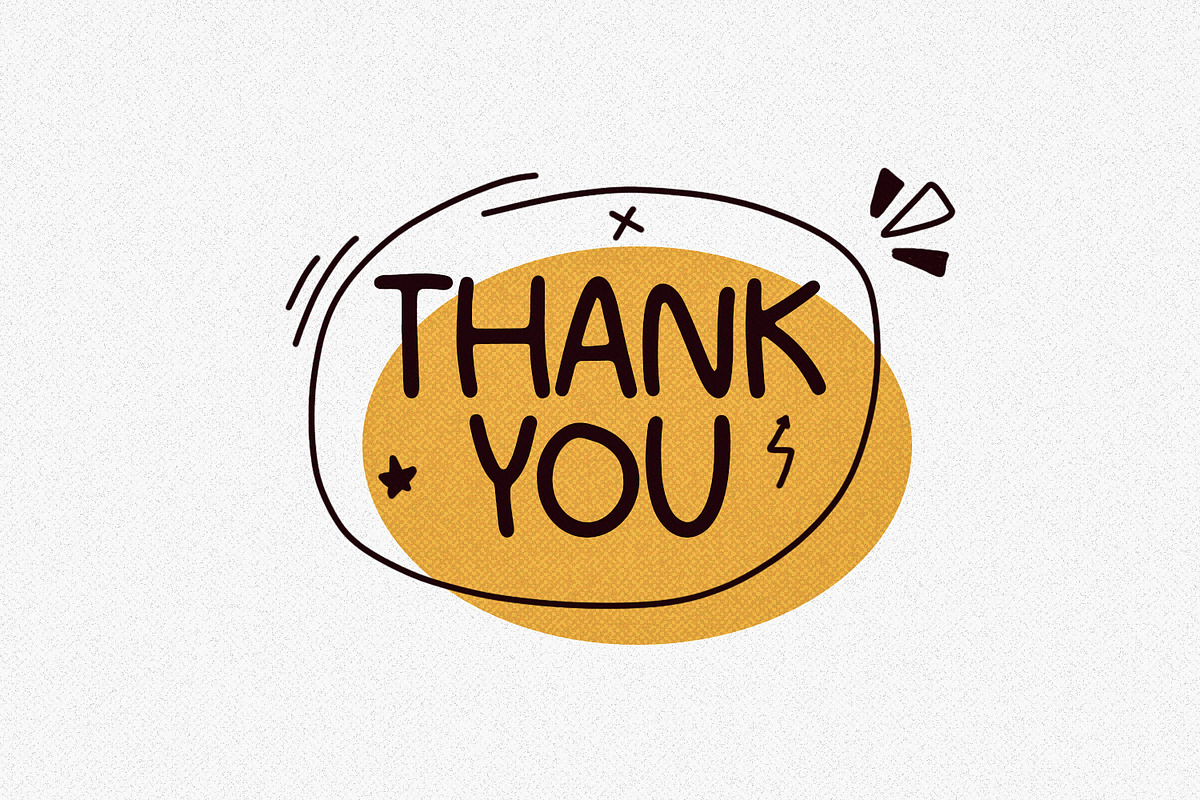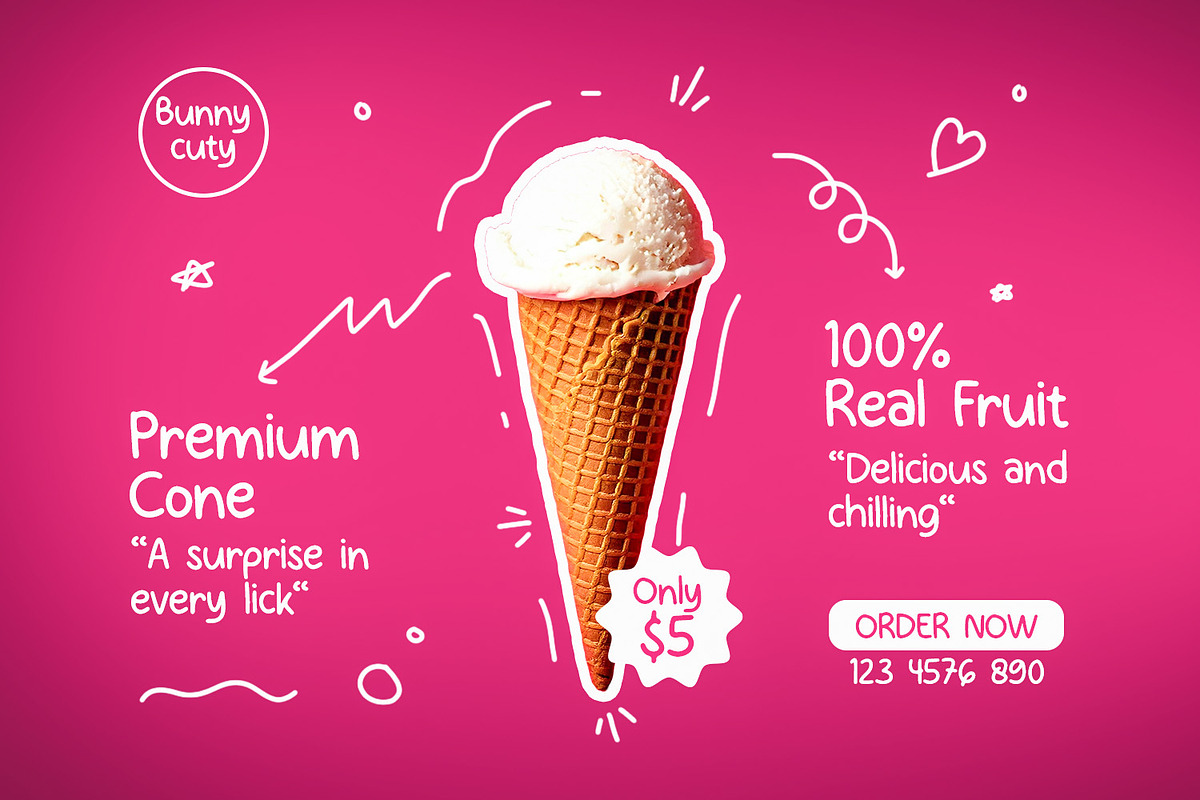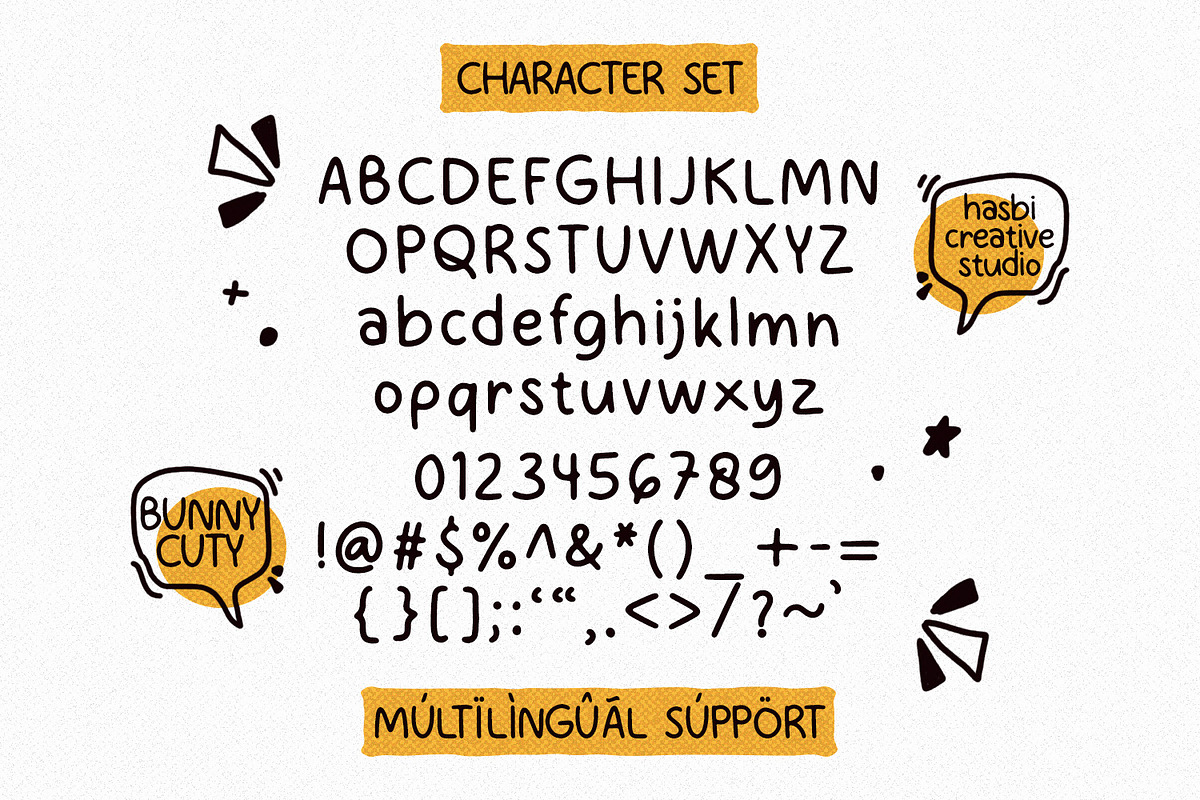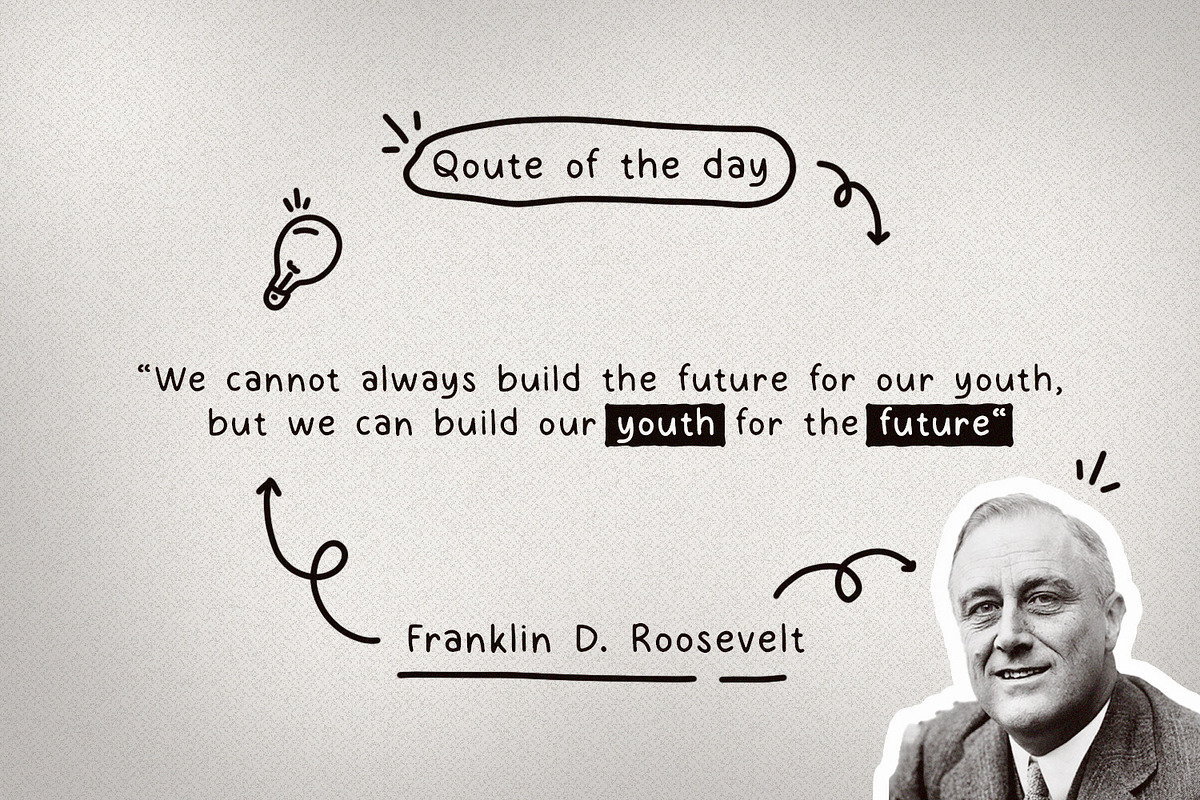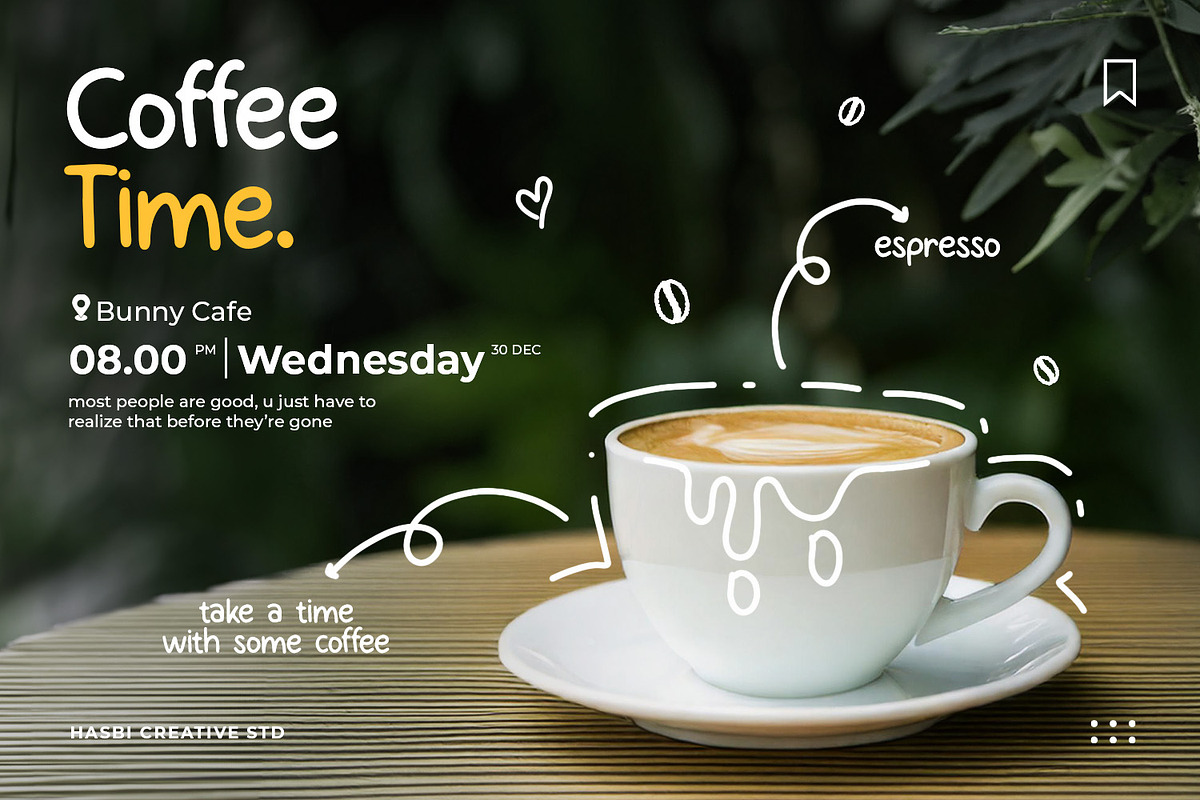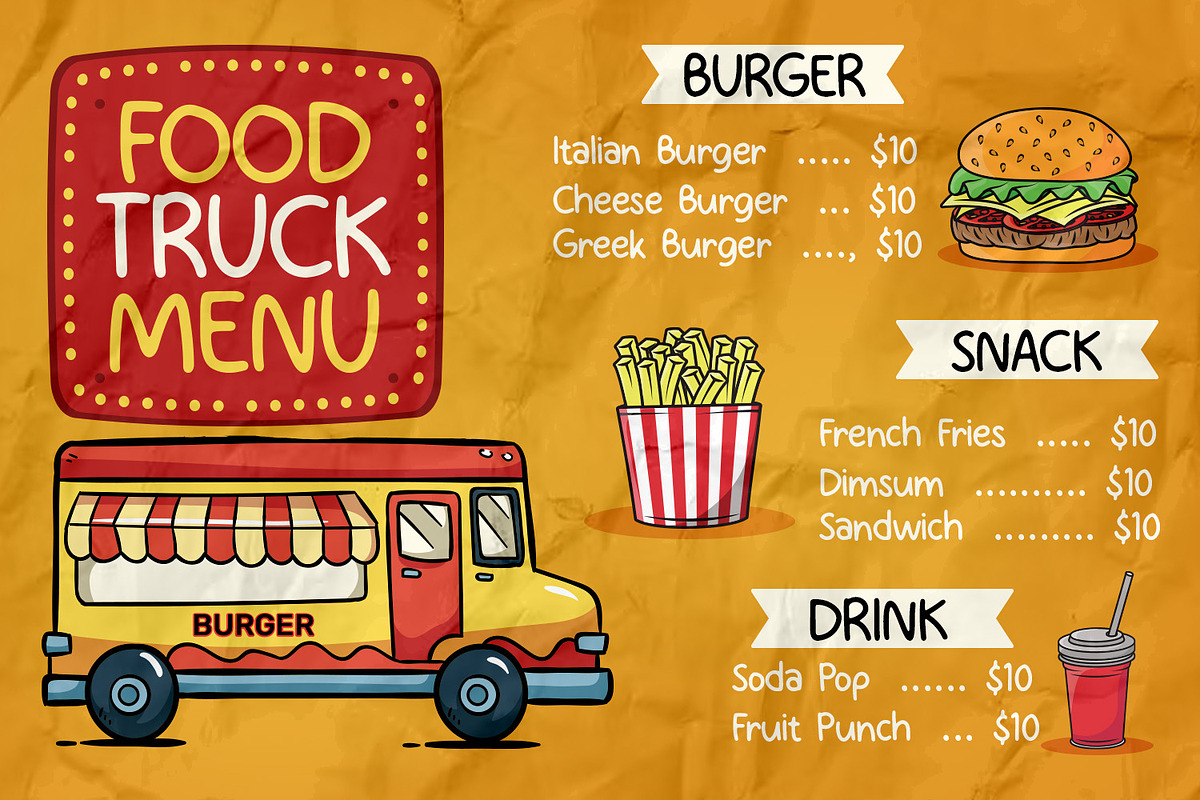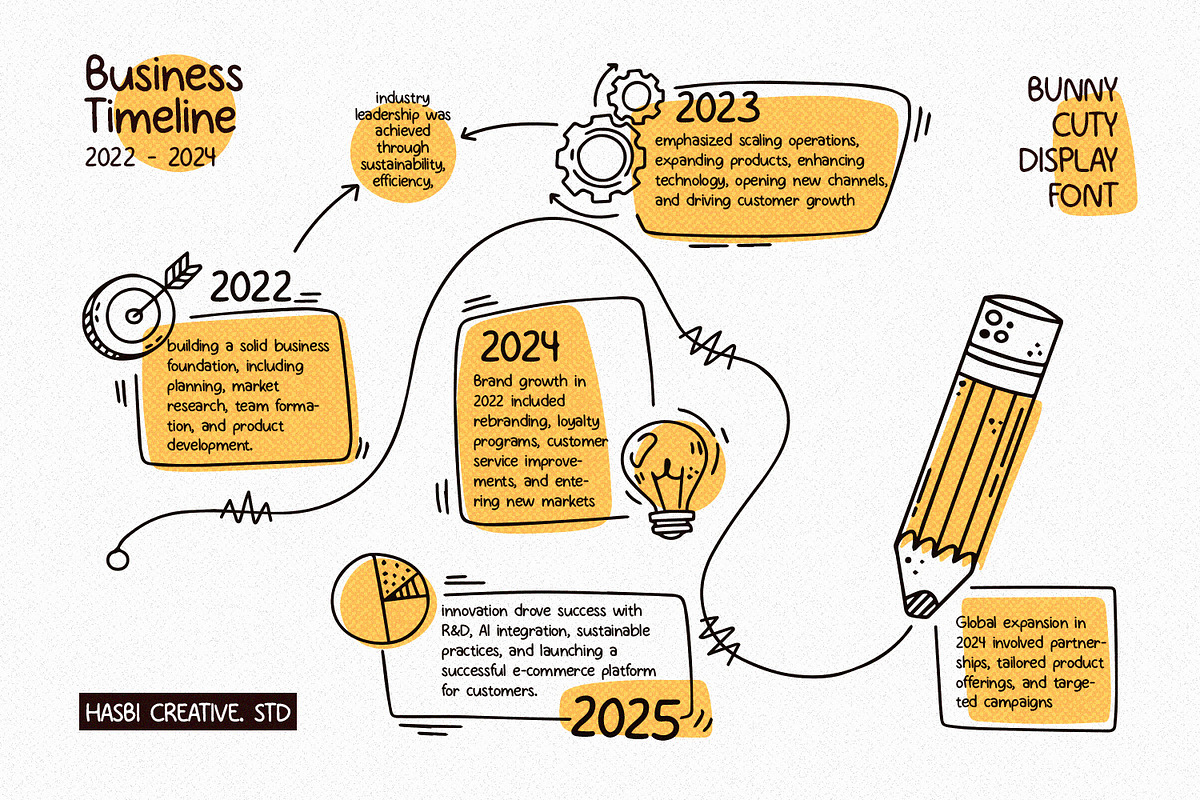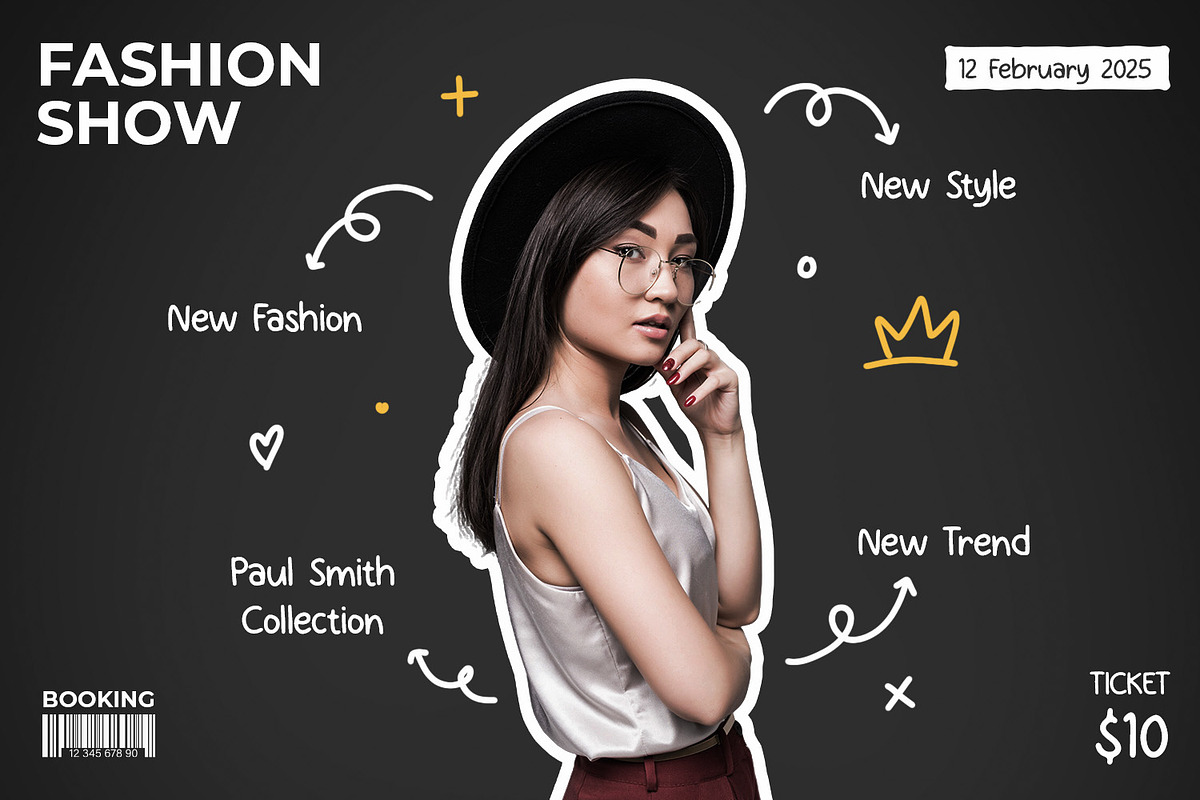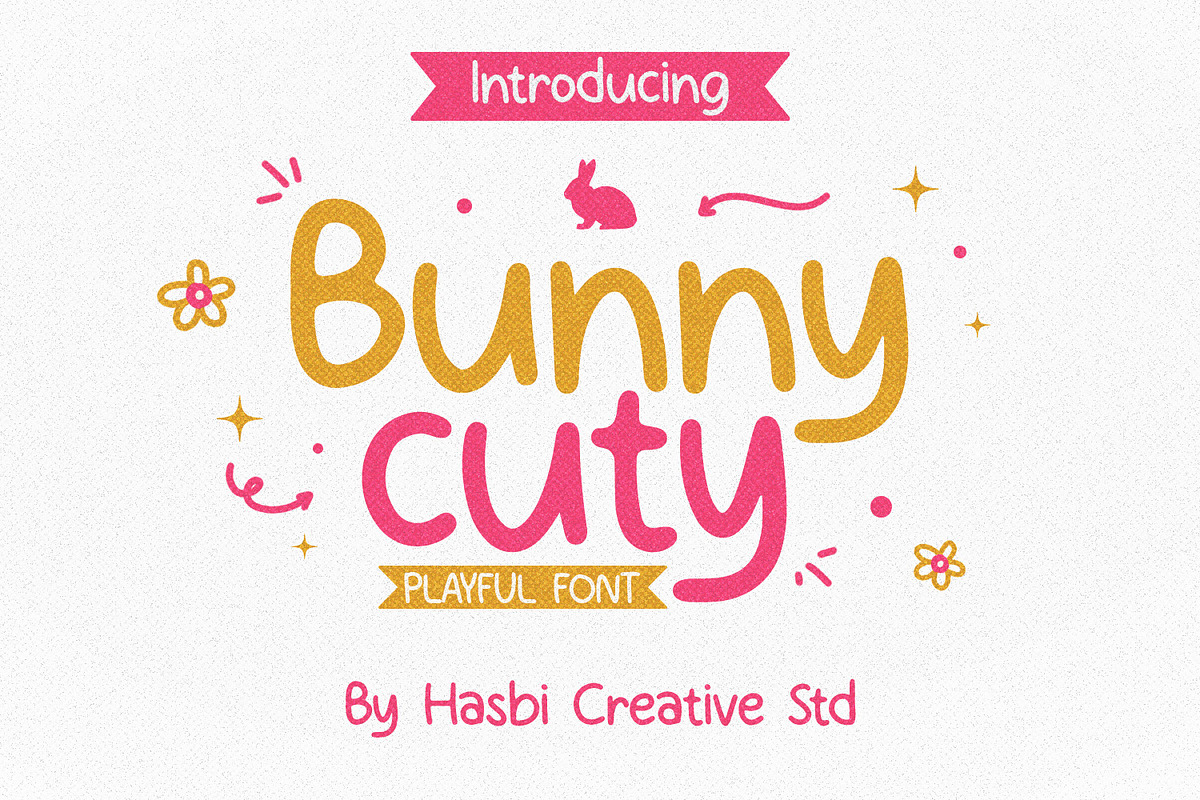
Bunny Cuty Display
Introducing Bunny Cuty, a playful display font that exudes an irresistible charm and a touch of whimsy. Its bouncy and energetic letters are ready to add a burst of personality to any design, making your words dance off the page with infectious delight.
This font is:
- Unique and eye-catching
- Playful and fun
- Versatile
- Easy to use
Embrace the playful charm of Bunny Cuty and let your words dance with joy!